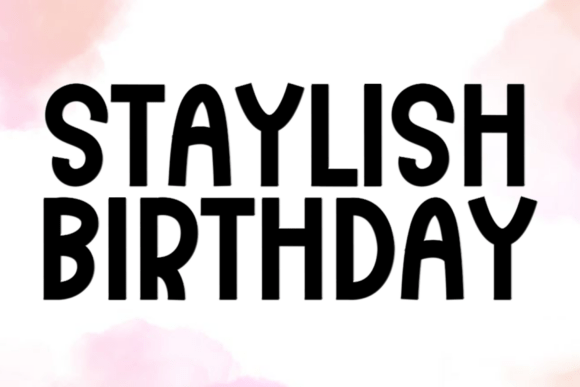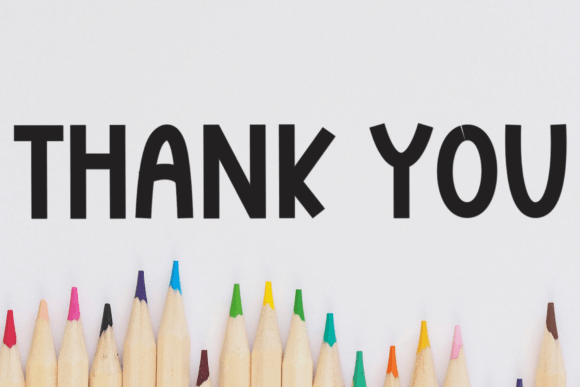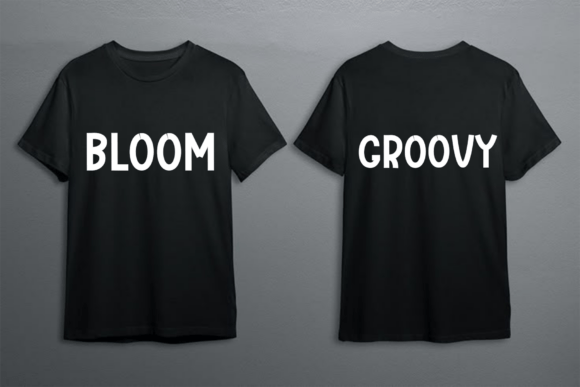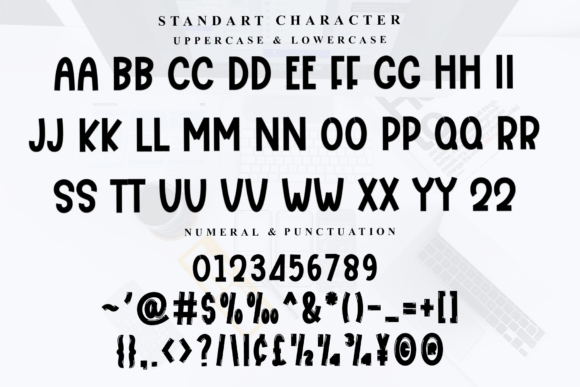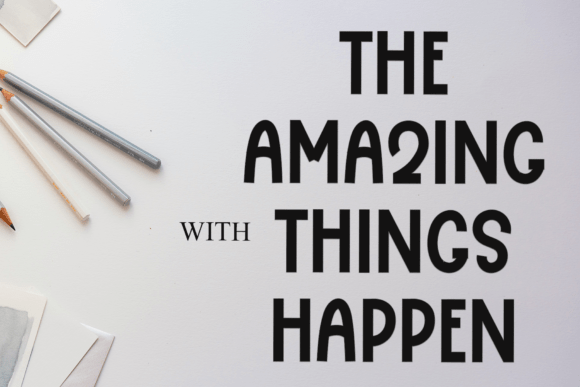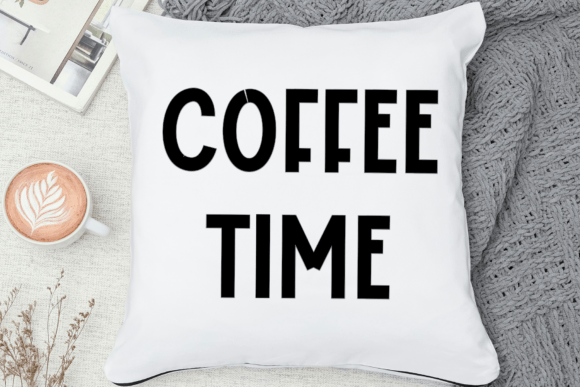
Happy Valentine Font: The Perfect Choice for Designers and Crafters
Are you looking for a unique and eye-catching font to make your designs stand out? Look no further than the Happy Valentine Font. This beautiful font is designed with a soft, unique touch that will add a special character to any design project. In this article, we’ll take a closer look at the Happy Valentine Font, its features, and how it can be used to enhance your designs.
What is Happy Valentine Font?
Happy Valentine Font is a distinctive and versatile font designed with a soft, unique touch. Its strokes are carefully crafted to give it a special character, making it perfect for a wide range of design projects, crafts, and other creative works. The font comes with a variety of characters, ensuring that you have everything you need to create stunning designs.
Key Features of Happy Valentine Font
- Unique and Eye-Catching Design: The Happy Valentine Font boasts a distinctive design that sets it apart from other fonts. Its soft, rounded strokes give it a warm and inviting feel, making it perfect for designs that require a personal touch.
- Versatile and Meaningful: This font is designed to be versatile and meaningful, making it suitable for a wide range of design projects, from romantic designs to creative crafts.
- Natural Font Style: The font features a natural style that makes it perfect for designs that require a personal touch. Its organic feel will appeal to audiences across different artistic and creative fields.
Use Cases for Happy Valentine Font
The Happy Valentine Font is perfect for a wide range of design projects, including:
- Valentine’s Day Designs: Create romantic designs, such as Valentine’s Day cards, posters, and social media graphics, that will capture the hearts of your audience.
- Crafts and DIY Projects: Use the Happy Valentine Font to add a personal touch to your craft and DIY projects, such as handmade cards, gift tags, and scrapbooking.
- Wedding and Event Designs: The font’s elegant and sophisticated design makes it perfect for wedding and event designs, such as invitations, programs, and signage.
- Branding and Marketing Materials: Use the Happy Valentine Font to create unique and memorable branding and marketing materials, such as logos, brochures, and business cards.
Benefits of Using Happy Valentine Font
By using the Happy Valentine Font, you’ll enjoy several benefits, including:
- Unique and Memorable Designs: The font’s distinctive design will help your designs stand out and be remembered by your audience.
- Time-Saving: With its wide range of characters, you can create stunning designs quickly and easily.
In conclusion, the Happy Valentine Font is a beautiful and eye-catching font that’s perfect for designers and crafters looking to add a unique touch to their designs. Its distinctive strokes, versatility, and compatibility with various applications make it an ideal choice for a wide range of design projects. Whether you’re creating Valentine’s Day designs, crafts, or branding materials, the Happy Valentine Font is sure to enhance your designs and appeal to your audience.